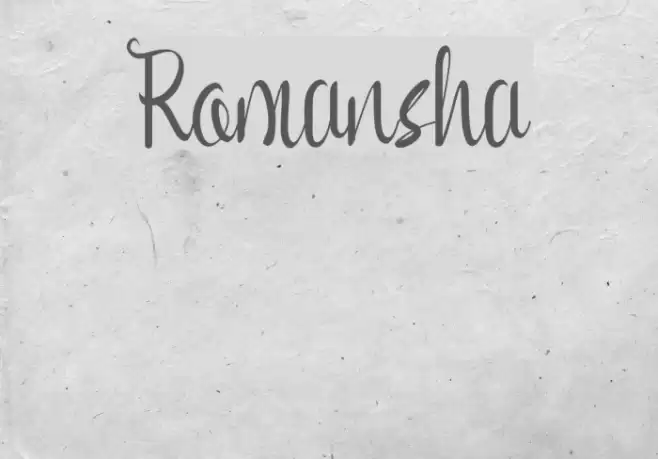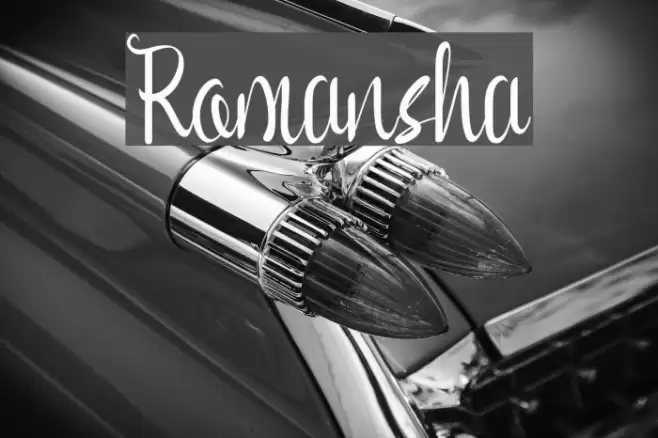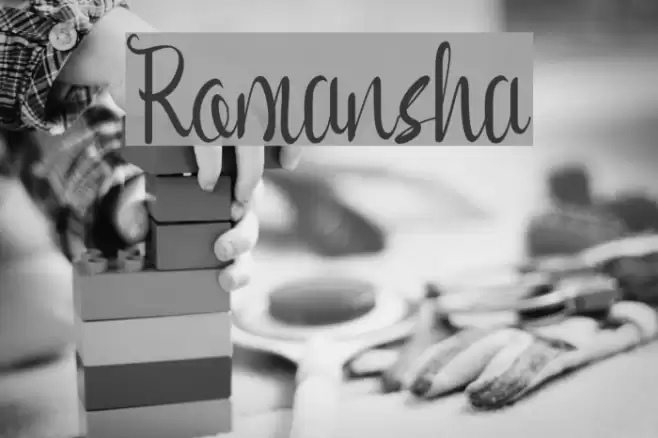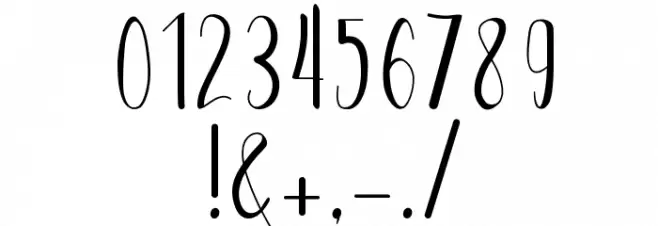
Romansha Font
Romansha Description
This font features a playful and elegant script style with a handwritten feel. The letters are characterized by their flowing, cursive forms and varying stroke widths, which add a dynamic and lively touch. The uppercase letters are tall and slightly narrow, with distinctive loops and swirls that enhance their decorative appeal. The lowercase letters maintain a consistent style, with smooth connections and a rhythmic flow. The numerals are designed to match the overall aesthetic, featuring similar curves and a sense of movement. Special characters are thoughtfully integrated, maintaining the font's cohesive look. This font's unique style makes it suitable for creative and artistic projects.
A playful and elegant script font with a handwritten feel, featuring flowing cursive forms from Uncategorized fonts.
- Proposed Projects: Ideal for wedding invitations, greeting cards, branding, and artistic projects that require a personal touch.
- Use Case: Logos, Invitations, Artistic projects